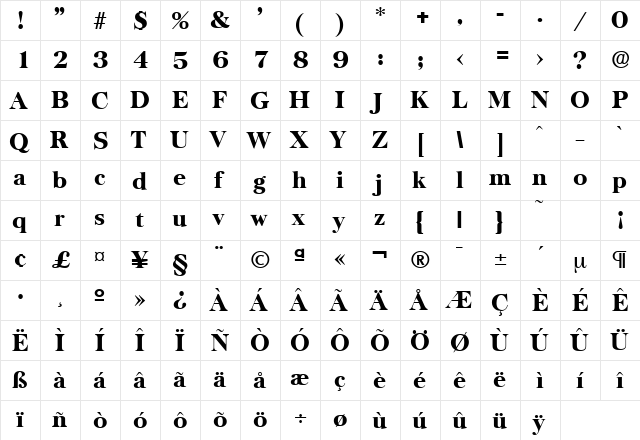
Baskerville-Serial-Heavy Regular
Design Context for Baskerville-Serial-Heavy Typeface
Baskerville-Serial-Heavy takes a measured approach to typography — its balanced proportions and neutral character make it a reliable workhorse for both digital and print work.